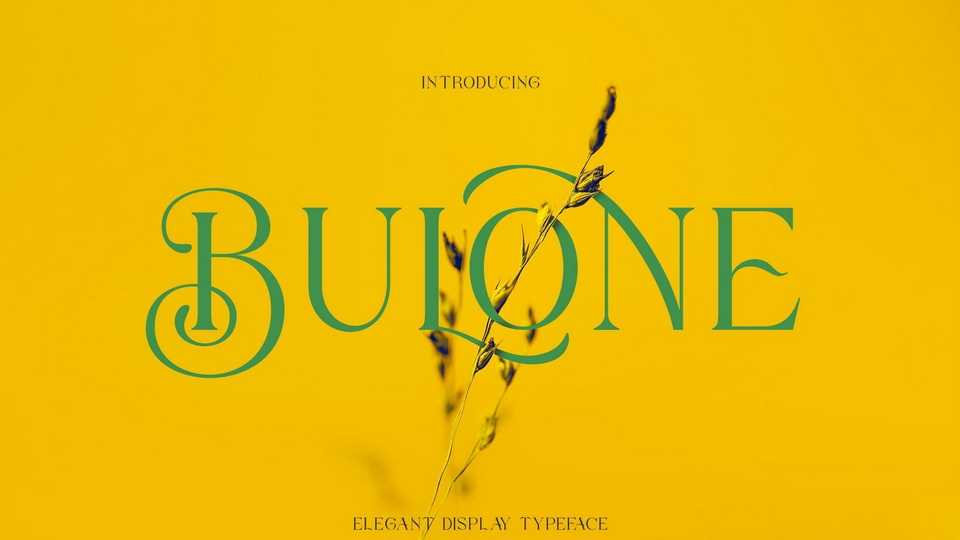
Download Bulone font, an elegantly themed typeface with a dynamic serif style. The details of Bulone font are very smooth and flow to create unique and beautiful curves.